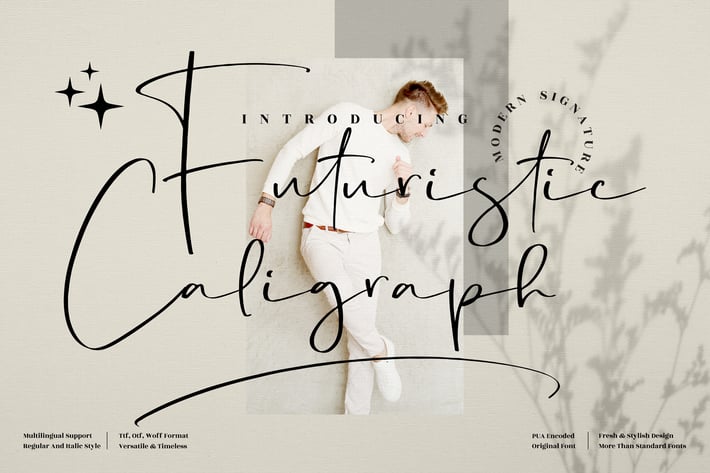
Futuristic Signature Font
Futuristic Calligraph is a bold and expressive modern signature font that blends fluid calligraphy strokes with a sleek, forward-thinking attitude. Its dynamic lines and confident flow create a striking handwritten look, perfect for designs that want to feel modern, artistic, and premium at the same time.
Modern calligraphy style with strong, expressive strokes
Smooth handwritten flow with a contemporary edge
High readability for display and signature use
Includes stylish ligatures and alternates
Where modern elegance meets expressive handwriting — crafted for bold visual statements.*